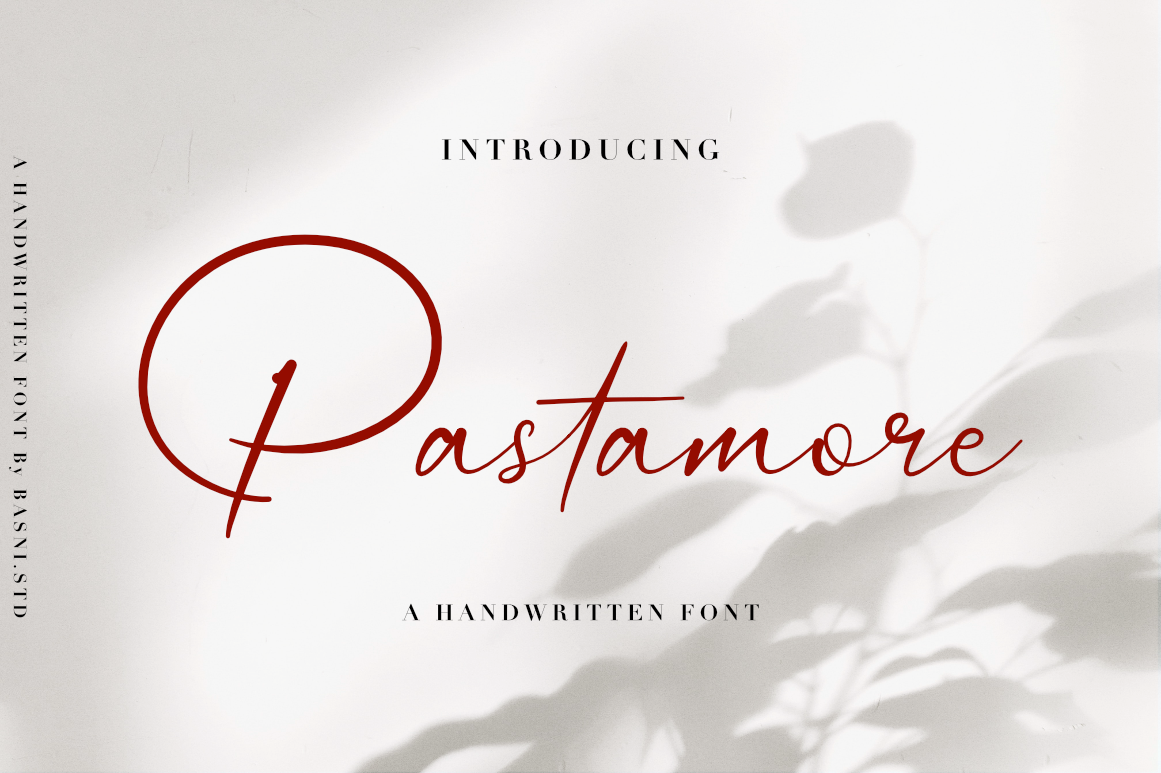
Introducing Pastamore, a Handwritten script font, Pastamore is perfect for sign, branding, websites, red wine labels, and editorial designs. Includes all upper and lower case letters, multilingual support, punctuation, binding and initial and final swash. everything can be easily accessed using software that supports OpenType.